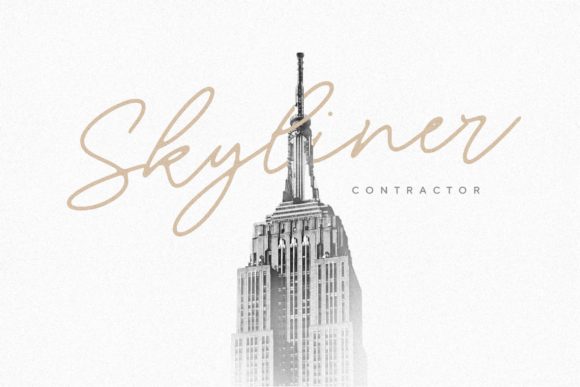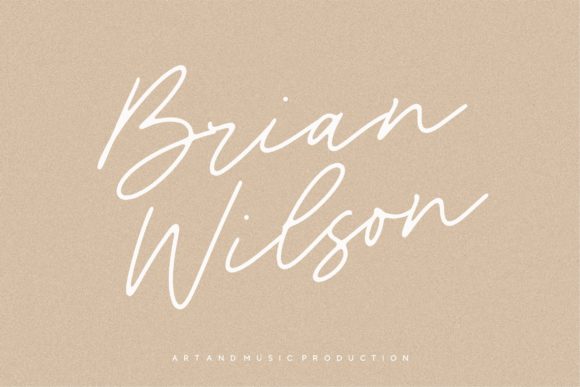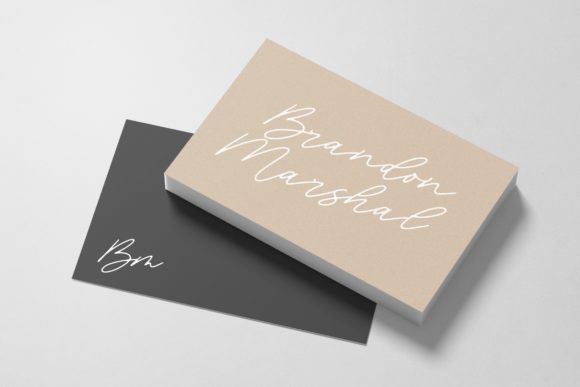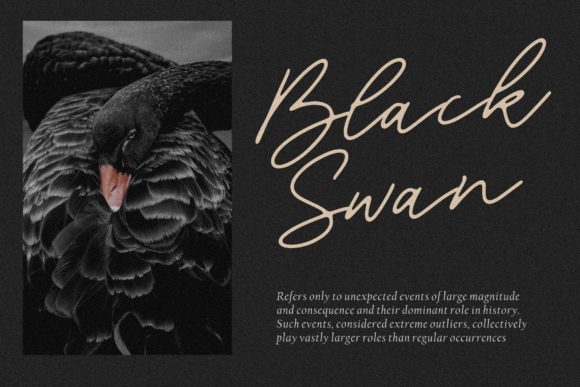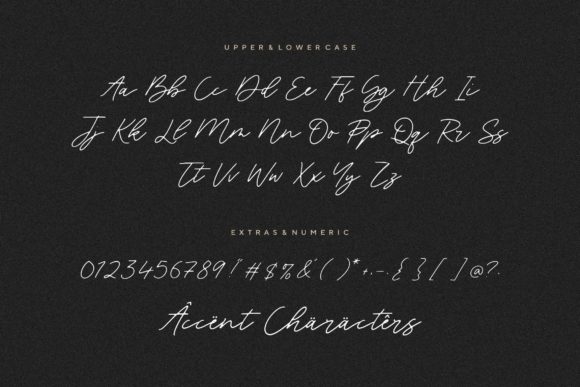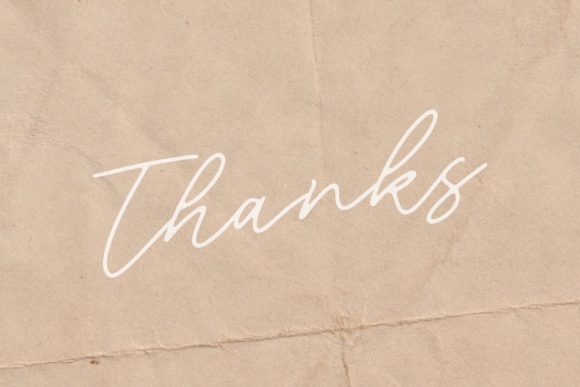
Introducing Blackswan Font: Elevate Your Designs with Elegance and Sophistication
Are you tired of using the same old fonts in your designs? Look no further than Blackswan Font, an exquisite handwritten font that is sure to become your new favorite. With its classy calligraphic influences and contemporary feel, Blackswan Font is the perfect choice for designers and crafters looking to add a touch of elegance and sophistication to their projects.
The Story Behind Blackswan Font
Blackswan Font is a masterfully designed font that combines traditional calligraphic techniques with modern sensibilities. The result is a font that feels both timeless and fresh, perfect for a wide range of design applications. Whether you’re working on a logo, branding project, or social media graphics, Blackswan Font is sure to make a lasting impression.
What Makes Blackswan Font So Special?
So, what sets Blackswan Font apart from other fonts on the market? Here are just a few of its standout features:
- Exquisite Handwritten Style: Blackswan Font is a beautifully crafted handwritten font that exudes elegance and sophistication.
- Classy Calligraphic Influences: With its roots in traditional calligraphy, Blackswan Font brings a touch of luxury and refinement to any design.
- Contemporary and Fresh: Despite its classic influences, Blackswan Font feels modern and fresh, making it perfect for designers who want to stay on-trend.
- Highly Versatile: Whether you’re working on a logo, heading, or body text, Blackswan Font is highly versatile and can be used in a wide range of design applications.
How to Use Blackswan Font in Your Designs
Ready to fall in love with Blackswan Font and bring your projects to the highest levels? Here are some tips for incorporating Blackswan Font into your designs:
- Pair it with Bold Colors: Blackswan Font looks stunning paired with bold, bright colors. Try pairing it with a deep berry shade or a rich gold for a luxurious feel.
- Use it for Headings and Titles: Blackswan Font is perfect for headings and titles, where its elegant script can really shine.
- Add it to Your Branding: If you’re looking to elevate your brand’s visual identity, consider incorporating Blackswan Font into your logo or branding materials.
- Experiment with Different Sizes: Blackswan Font looks great in a variety of sizes, from large headings to smaller body text. Experiment with different sizes to find the perfect fit for your design.
Why Designers and Crafters Love Blackswan Font
So, why are designers and crafters raving about Blackswan Font? Here are just a few reasons:
- Unique and Eye-Catching: Blackswan Font is a true standout in the world of fonts, making it perfect for designers who want to create unique and eye-catching designs.
- Elegant and Sophisticated: With its classy calligraphic influences and contemporary feel, Blackswan Font brings a touch of elegance and sophistication to any design.
- Easy to Read: Despite its elegant script, Blackswan Font is highly legible and easy to read, making it perfect for body text and other applications where readability is key.
| Font Name | Blackswan Font |
| Author | letterativestudio |
In conclusion, Blackswan Font is a truly exquisite handwritten font that is sure to become a favorite among designers and crafters. With its classy calligraphic influences, contemporary feel, and highly versatile design, Blackswan Font is the perfect choice for anyone looking to elevate their designs and bring their projects to the highest levels. So why wait? Fall in love with Blackswan Font today and discover a whole new world of design possibilities!